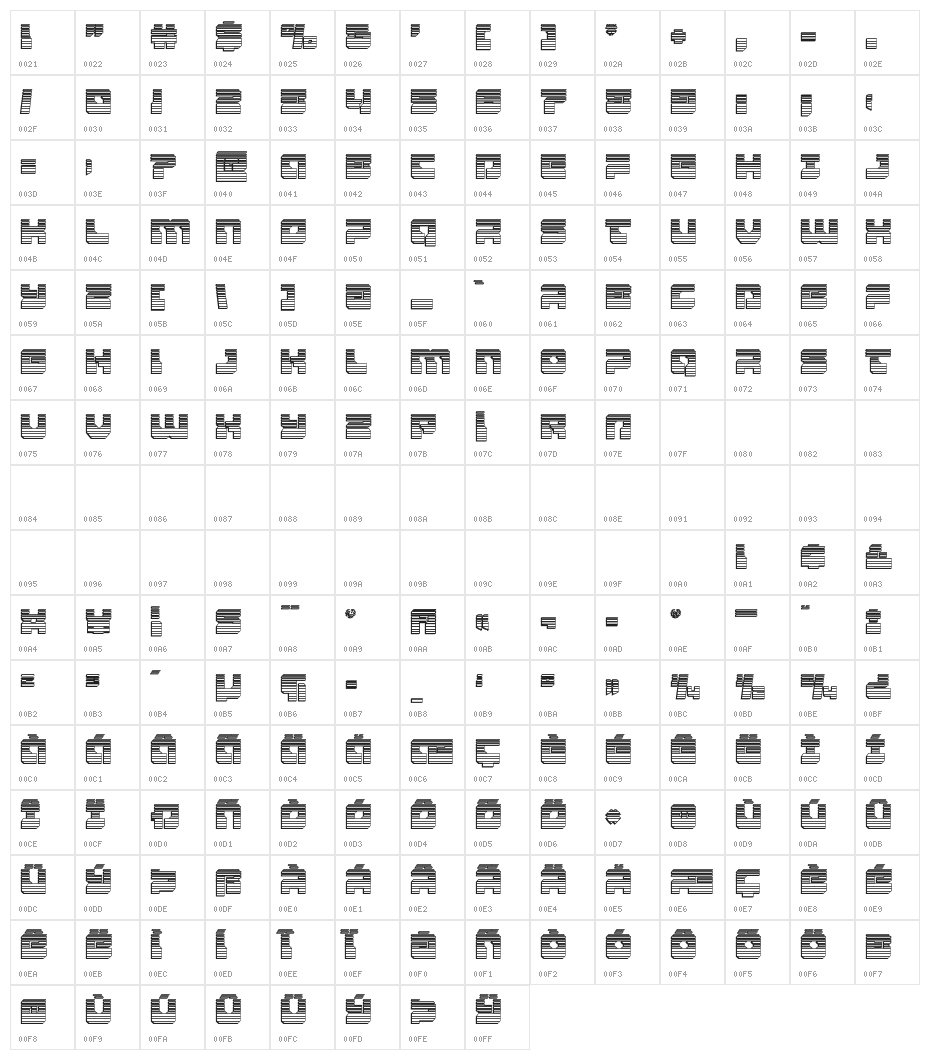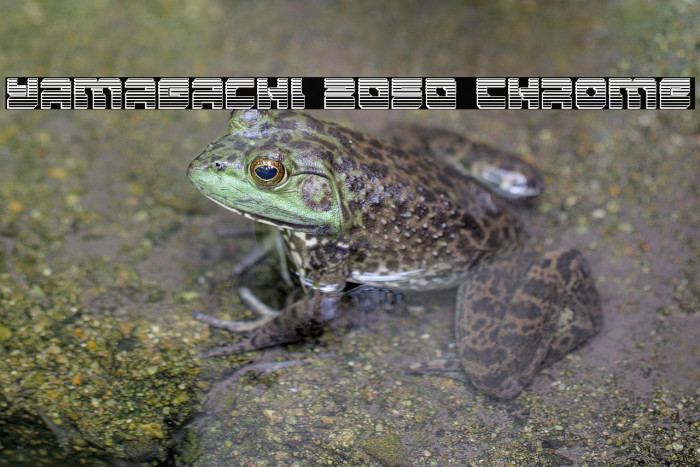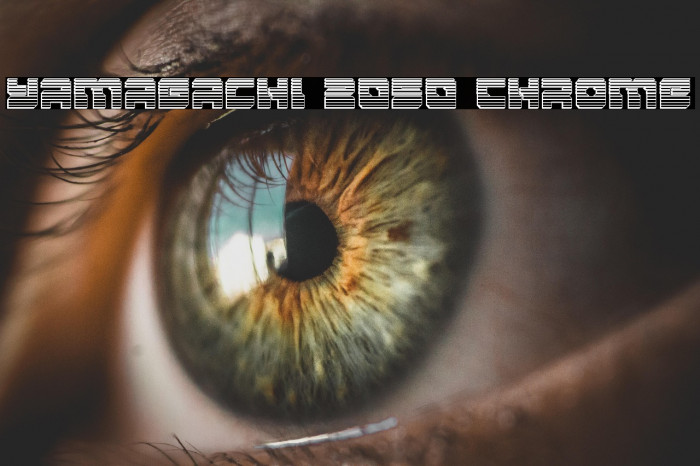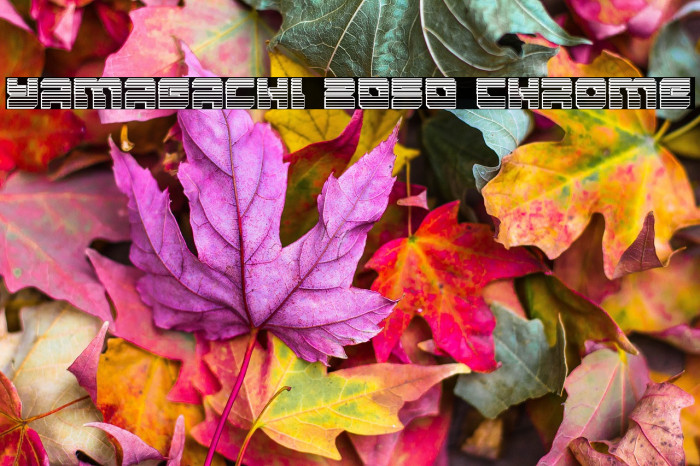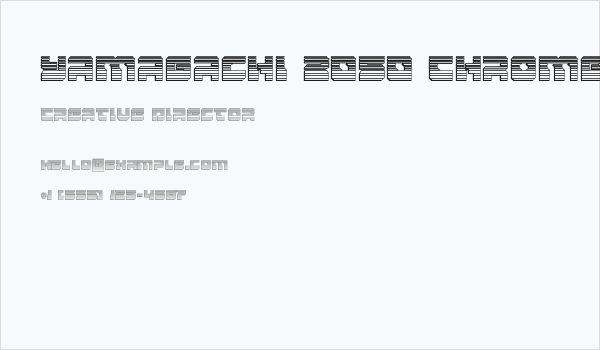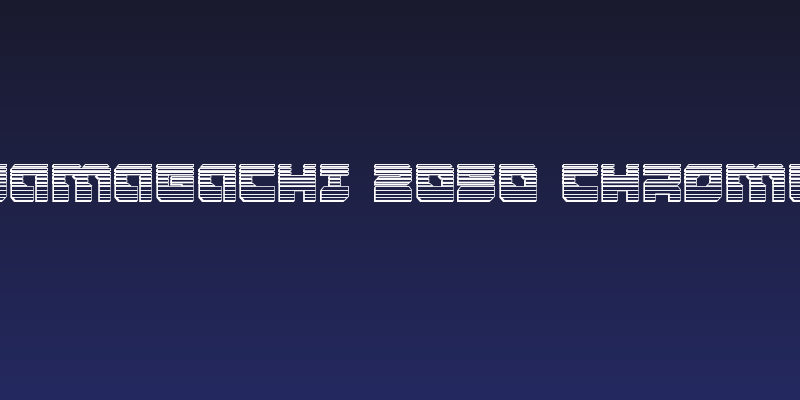
Yamagachi 2050 Chrome Font
Yamagachi 2050 Chrome Description
This font features a futuristic and geometric design, characterized by its bold, multi-layered lines that create a three-dimensional effect. Each character is constructed with parallel horizontal lines, giving it a unique, chrome-like appearance. The font's structure is rigid and angular, with sharp edges and a consistent width throughout. It has a strong visual impact, making it suitable for projects that require a modern and technological aesthetic. The uppercase and lowercase letters maintain a uniform style, while the numbers and special characters complement the overall design seamlessly.
| Proposed Projects | Ideal for sci-fi themed designs, technology branding, video game titles, and futuristic posters. |